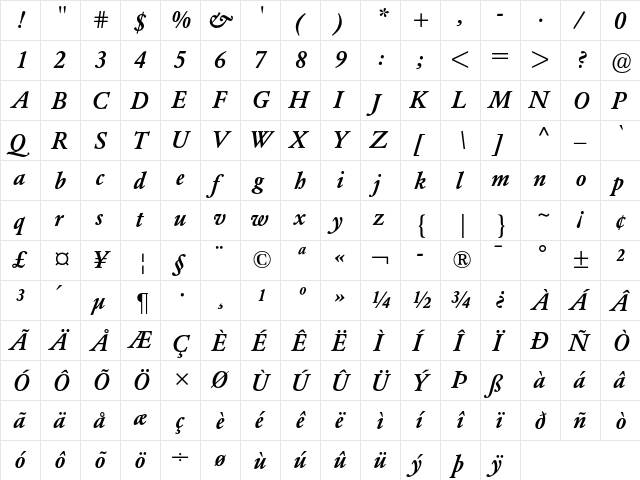
Garamond BE Medium Italic
Design Context for Garamond BE Typeface
Garamond BE offers clean, dependable letterforms without strong stylistic allegiance, making it a practical choice for designers who need flexibility. Its italic angle brings a sense of urgency and motion to the letterforms.
Pro Tip: Try Garamond BE for annotation and caption copy alongside an upright companion — the contrast in angle creates a dynamic but ordered typographic system.